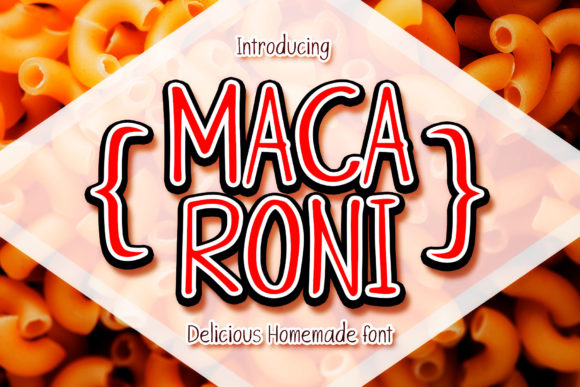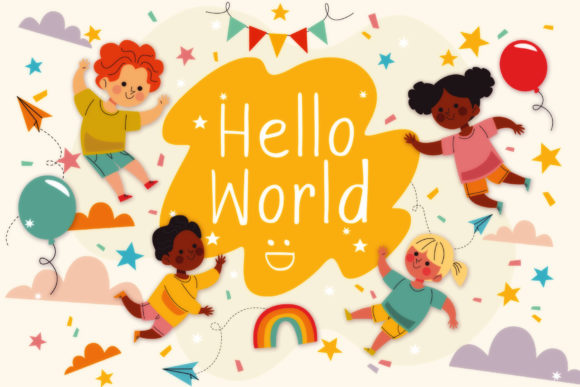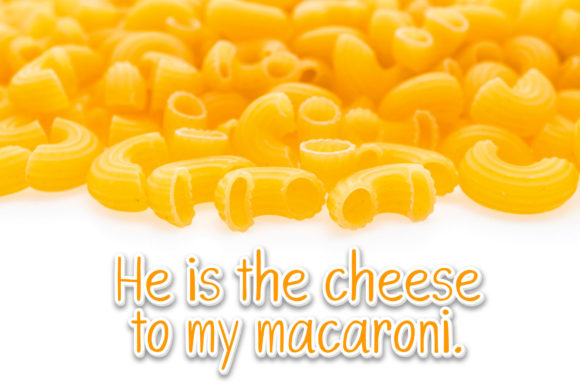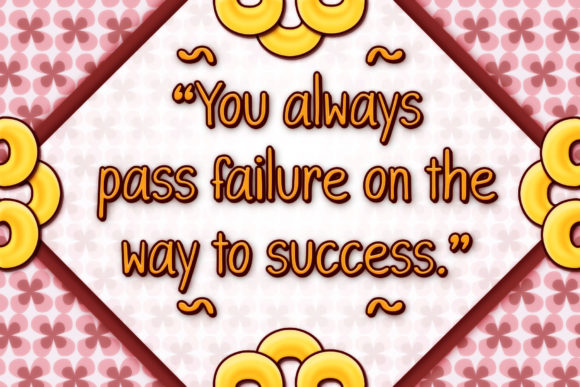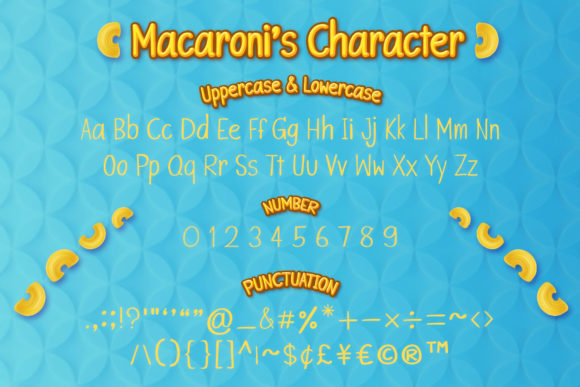
Macaroni Font
About Macaroni Font
Macaroni is a charming and fun script font. Whether you’re looking for fonts for Instagram or calligraphy scripts for DIY projects, Macaroni will turn any creative idea into a true piece of art!